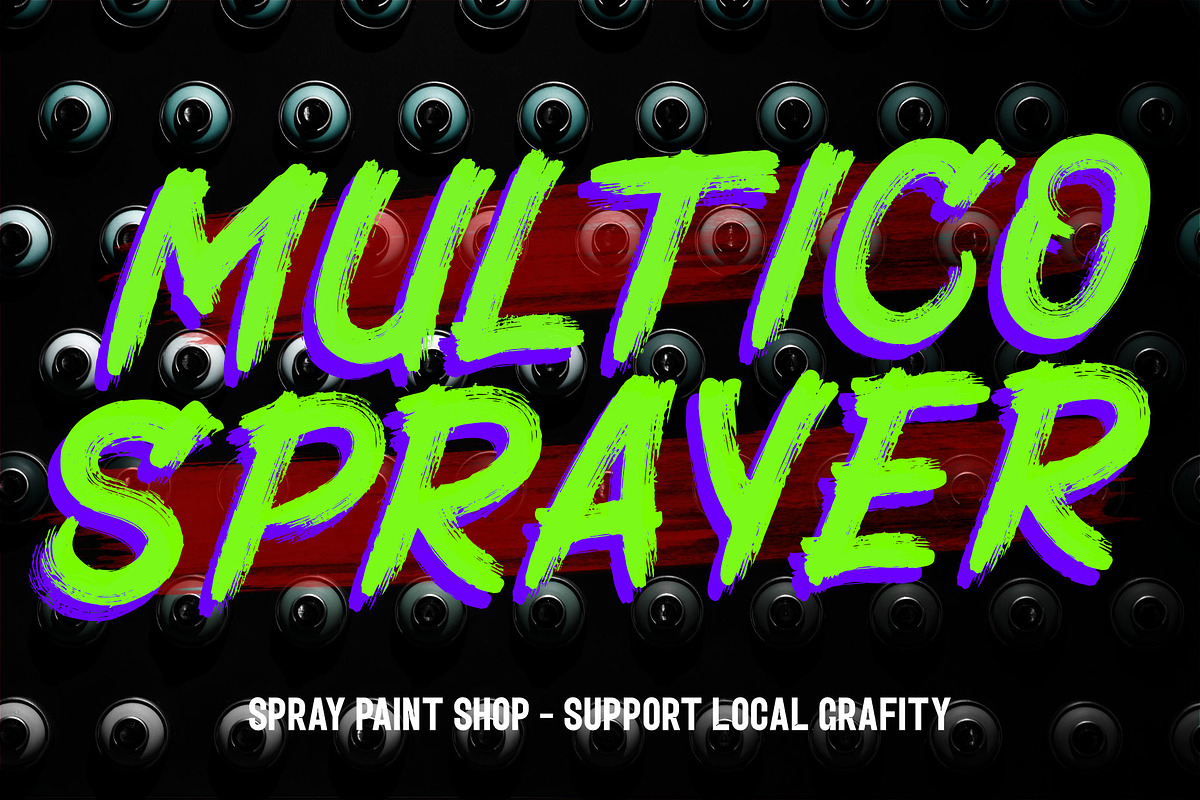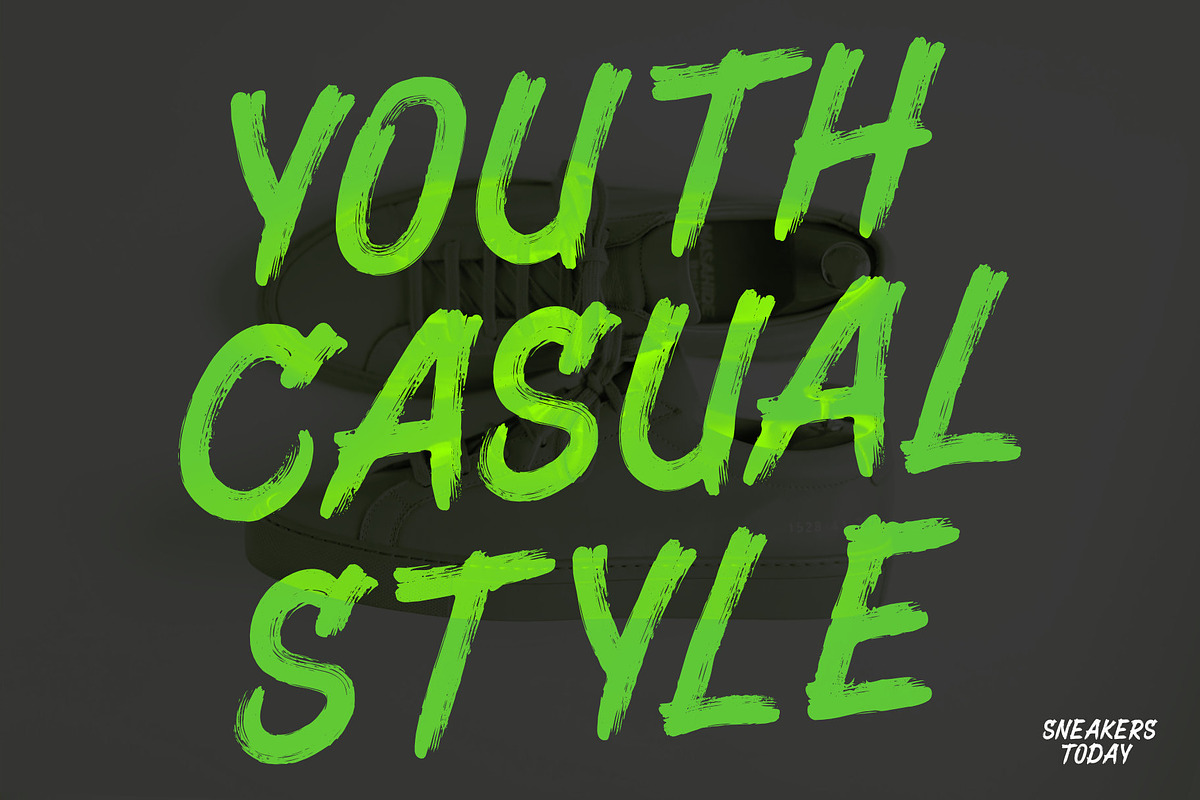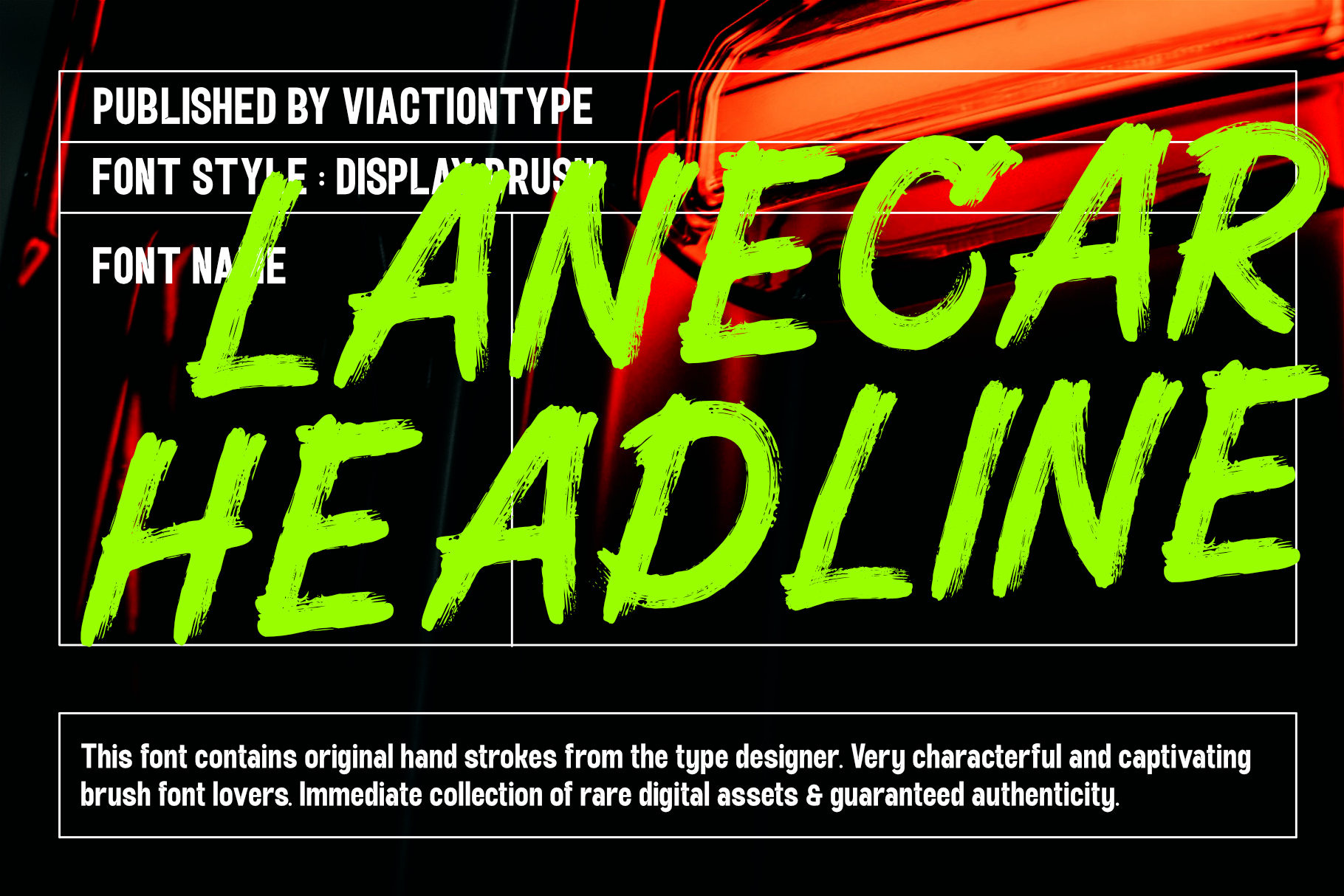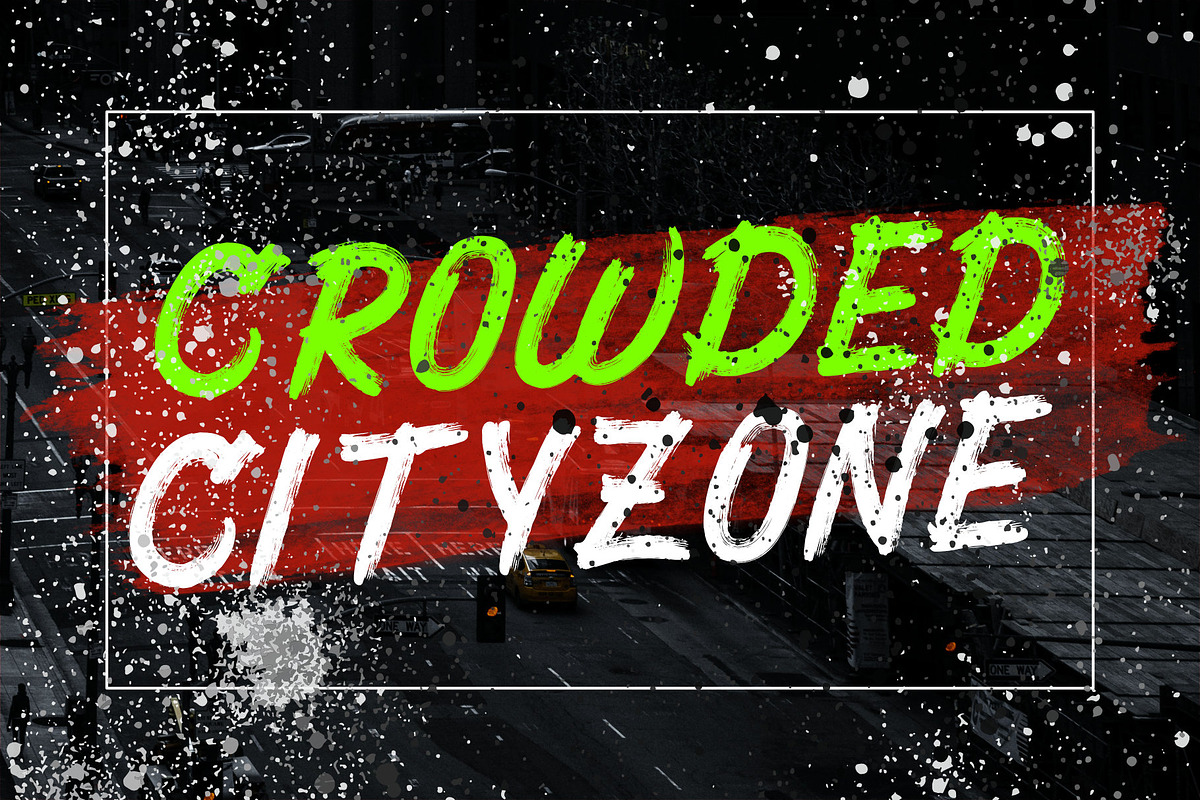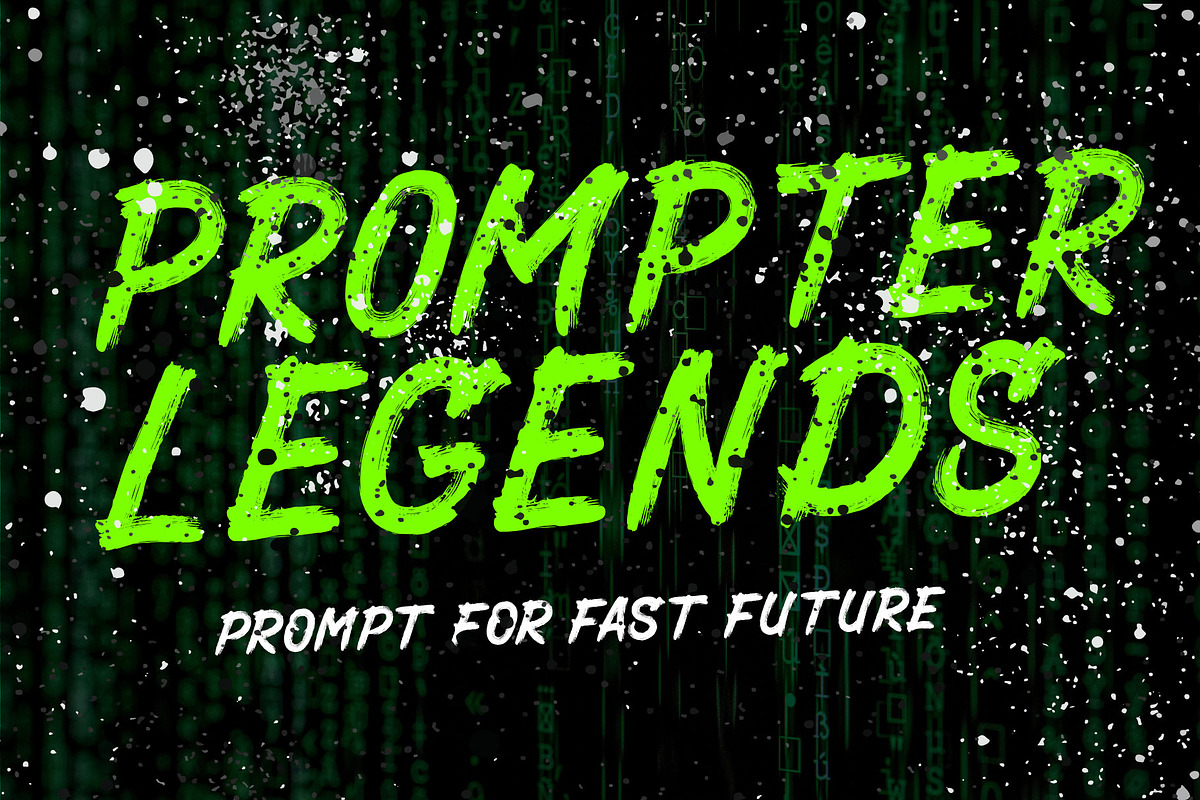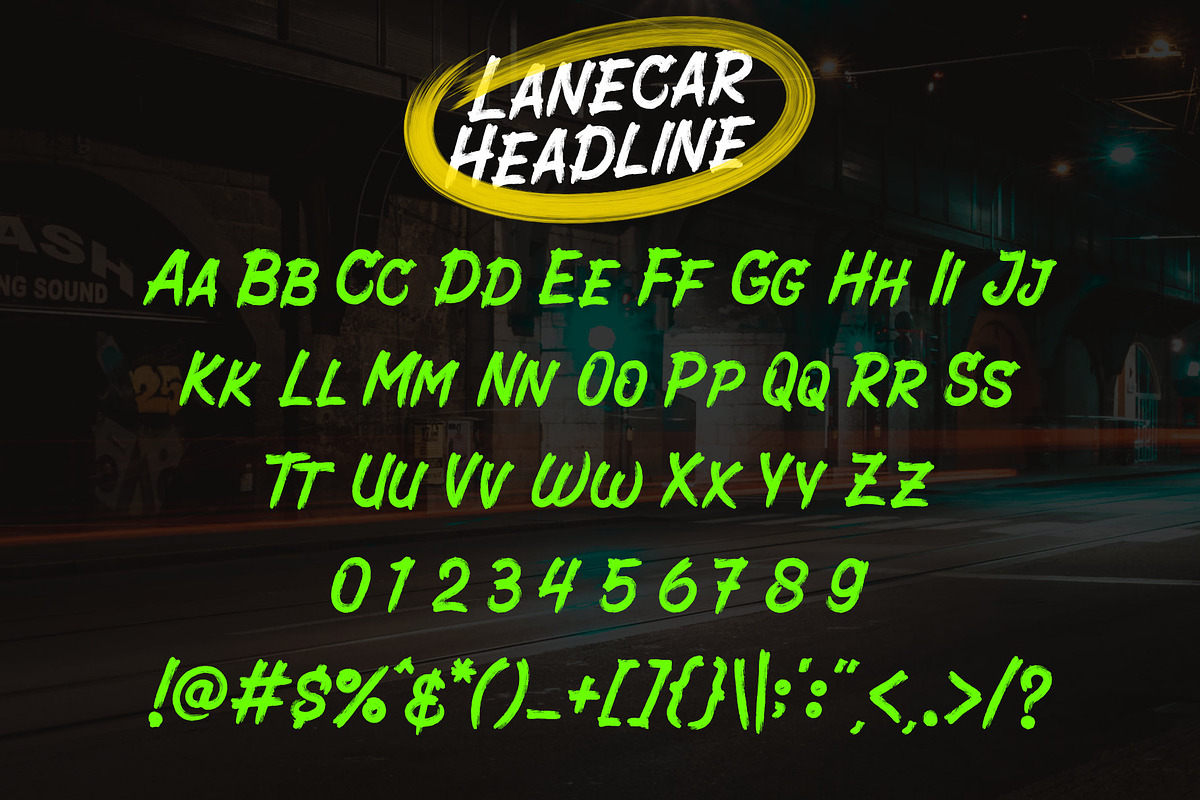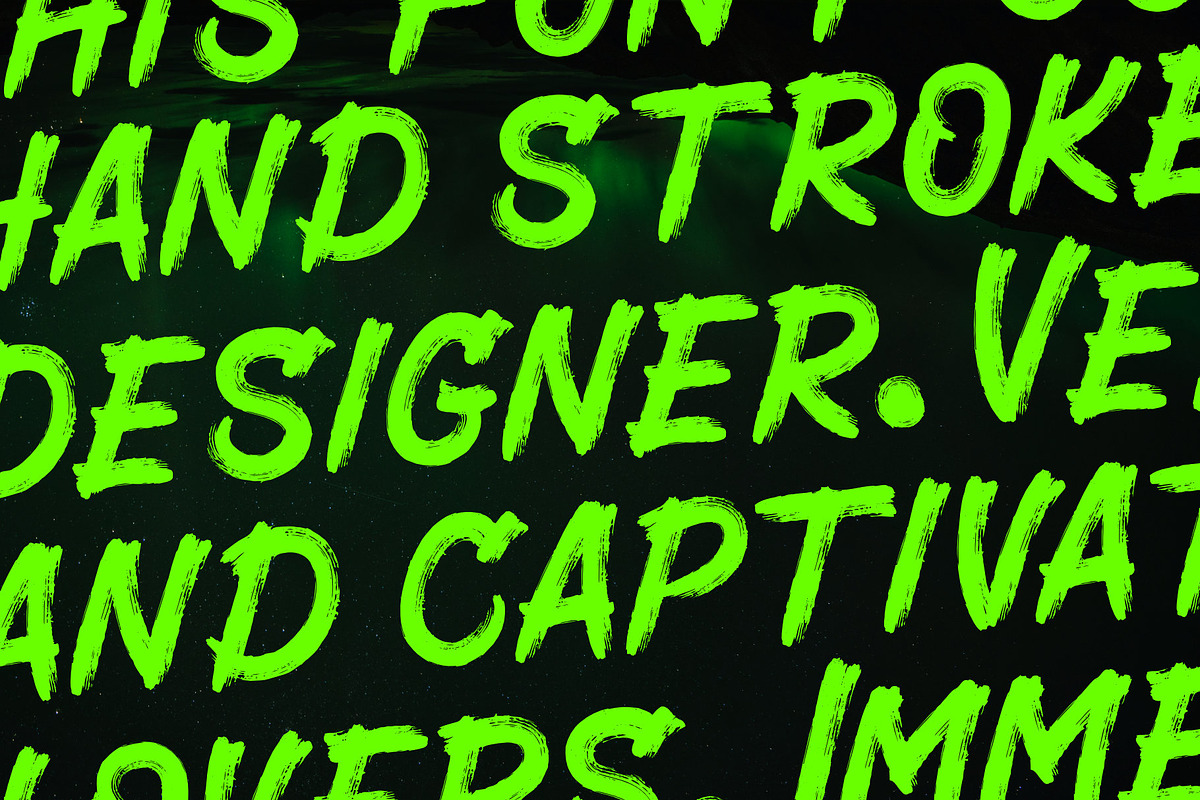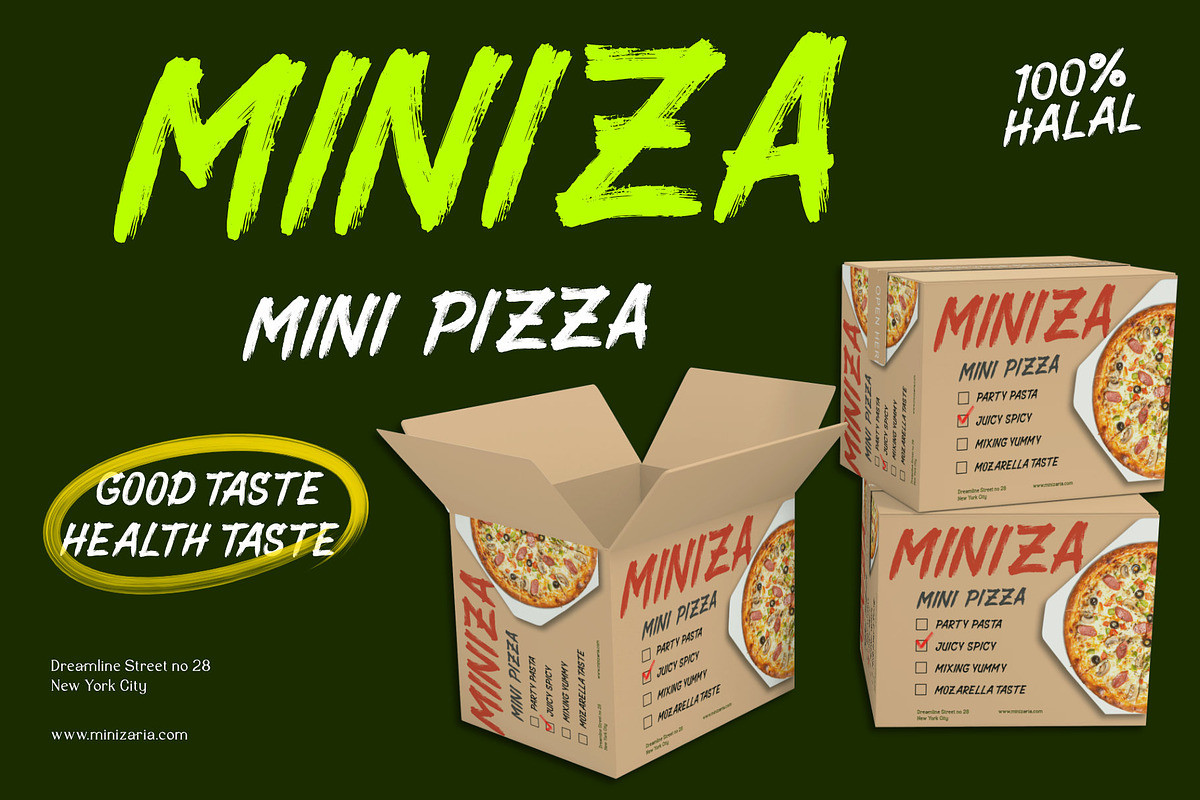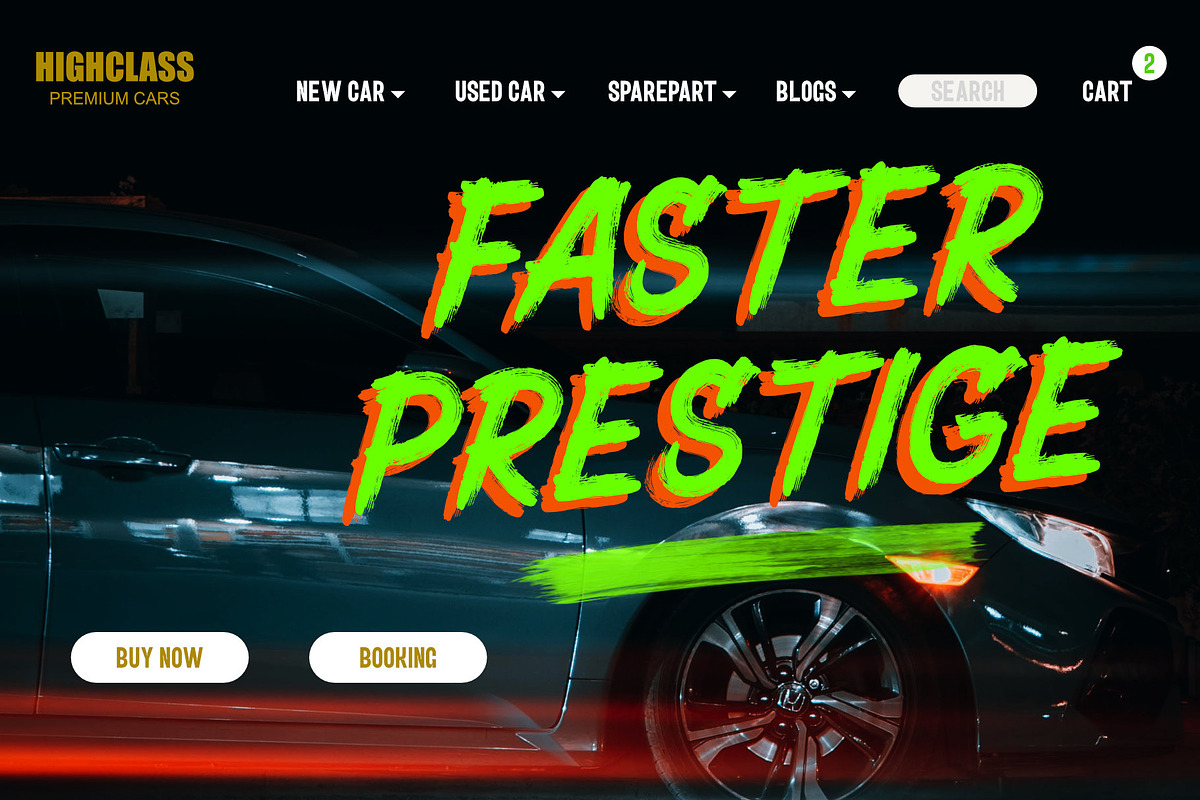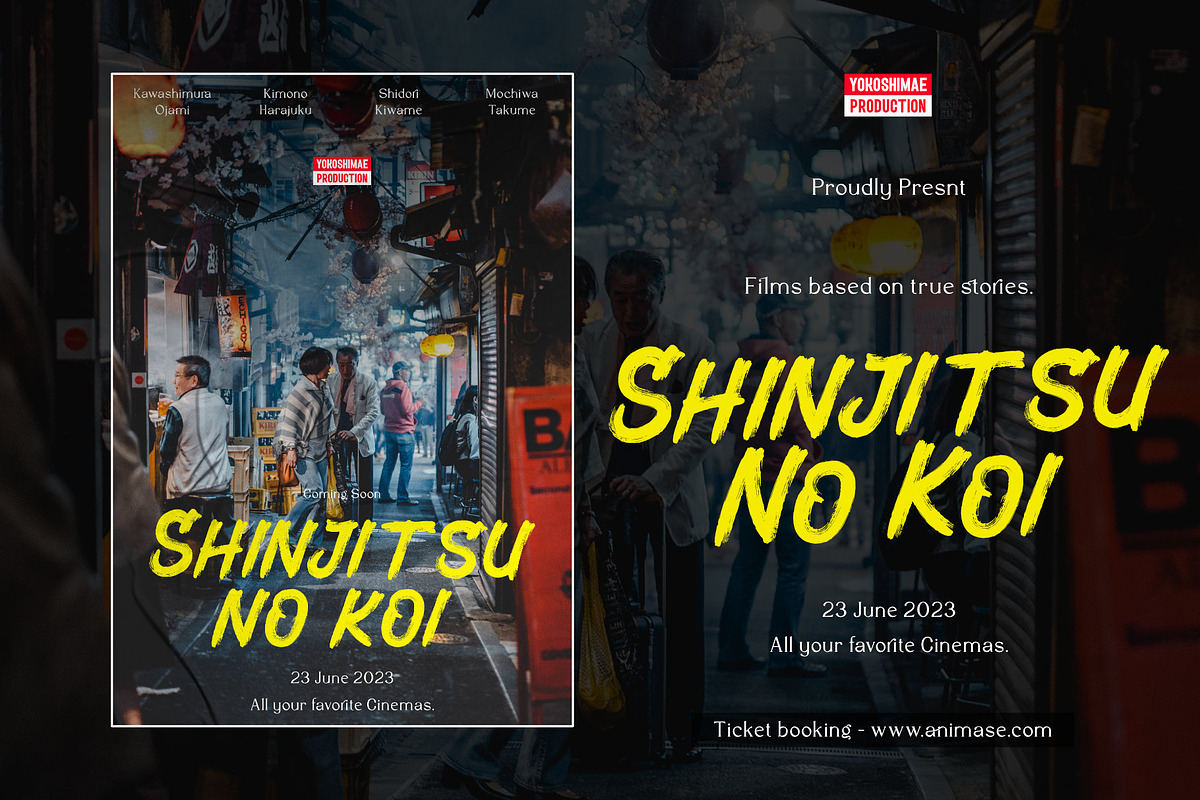
VT Lanecar Headline – Brush Font
Lanecar Headline is an original hand-drawn brush font from the font designer. Very thick with brush strokes that are still visible so that it adds a rough impression. Perfect for display purposes and headlines. Font features include: